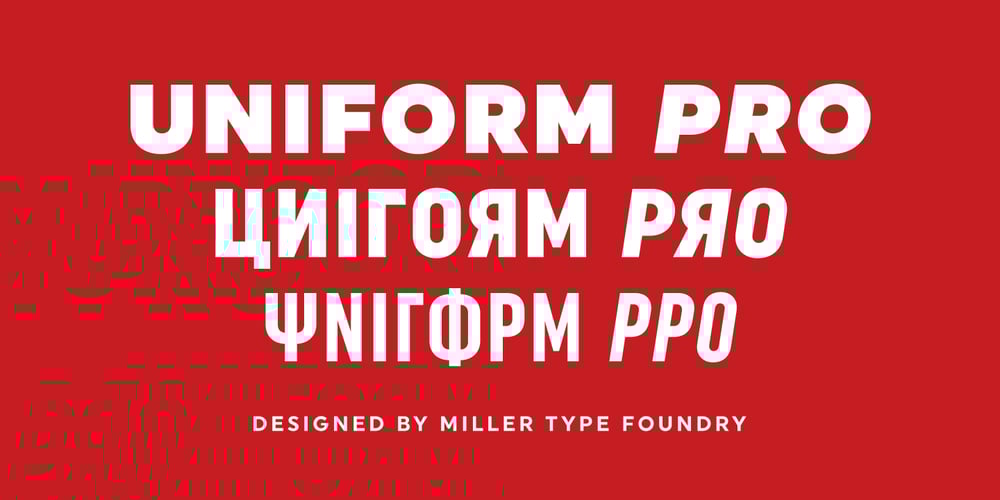
Uniform Pro
Uniform Pro font
Uniform Pro Font Family was designed by Richard Miller and published by Miller Type Foundry. Uniform Pro contains 42 styles and family package options. THE SPARKUniform started as a spark of inspiration one day while I was shopping at the store. I was looking at some typography on a can of dog food and the idea popped into my head, “What if there was a geometric typeface with a circular O that when condensed, the O became straight sided, instead of becoming an oval?”I quickly sketched out the concept of Uniform and liked what I saw, the only problem was I was working full time as a graphic designer, and as a newly married husband, I didn’t have any time to make the extensive typeface.LETDOWNA year and a half later, shortly after the birth of my first child, my boss cut my hours in half. Although stressful, I saw this event as an opportunity to finally have time to complete the typeface I had in my head. I spent a couple months putting together a Kickstarter campaign, thinking it would be a smashing success, and I would be able to live off the donations long enough to complete the typeface. Wrong! The campaign was a flop and I was left discouraged and dejected, thinking that the great idea I had in my head would never become a reality…PERSEVERANCEAt the end of the year, in December 2013, I decided to go for it and make this new type family no matter what it took. I began waking up a few hours before work each morning (getting only four hours of sleep each night) carefully crafting each individual glyph day by day. After nine months of hard work (and just about killing myself in the process!) in October 2014, I finally had a finished product ready to be released to the public!THE PINNACLEFast forward a few years and now Uniform has reached it’s pinnacle, Uniform Pro. Uniform Pro now offers extended language support including Cyrillic and Greek character sets, integrated italic styles, additional weights, and additional OpenType features.